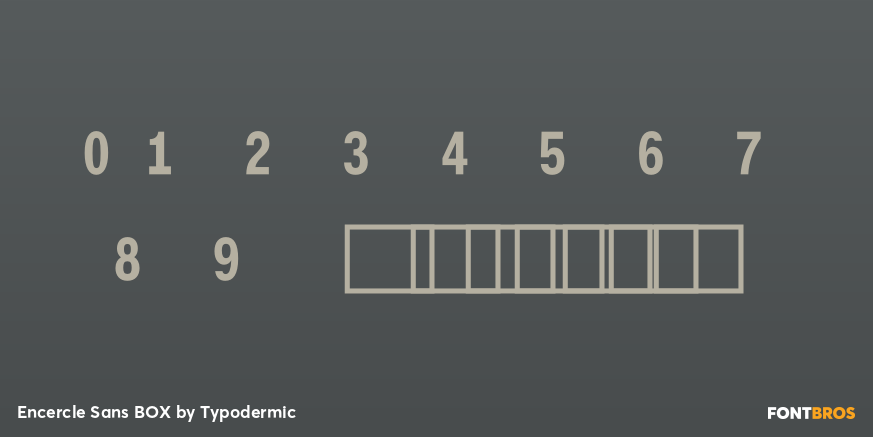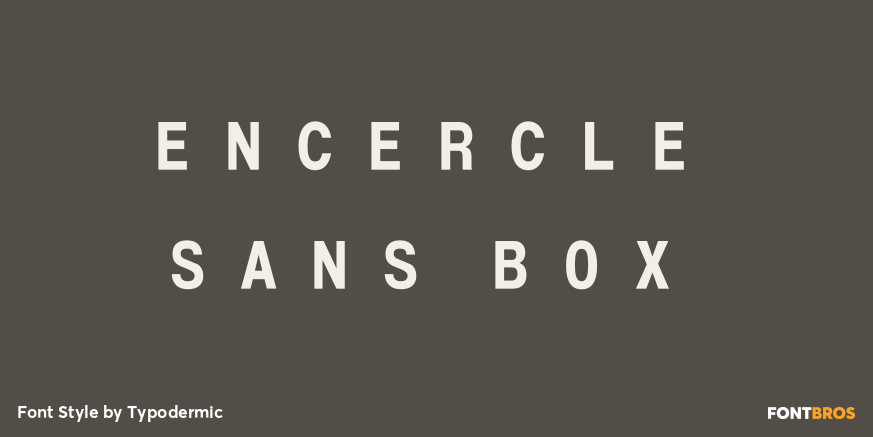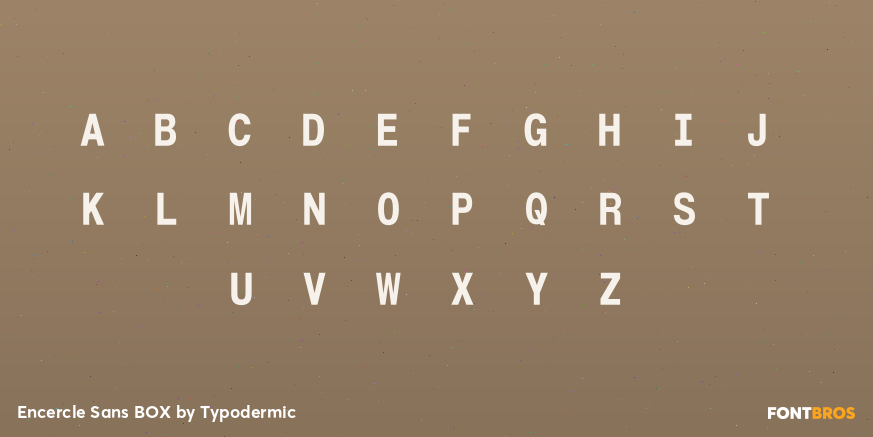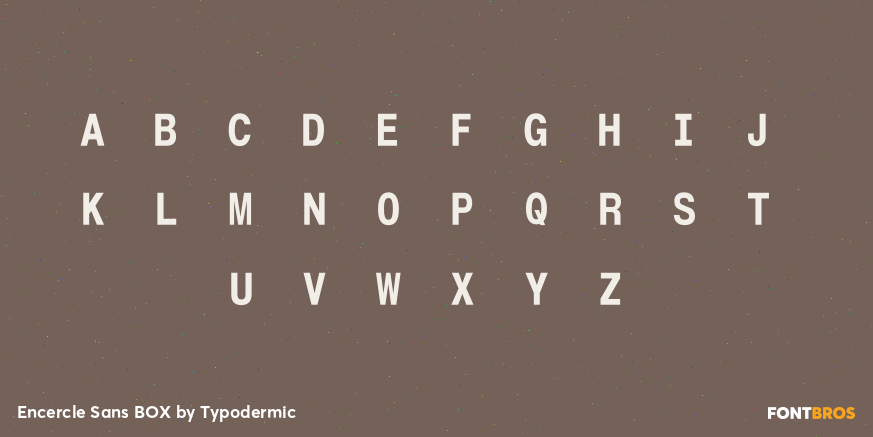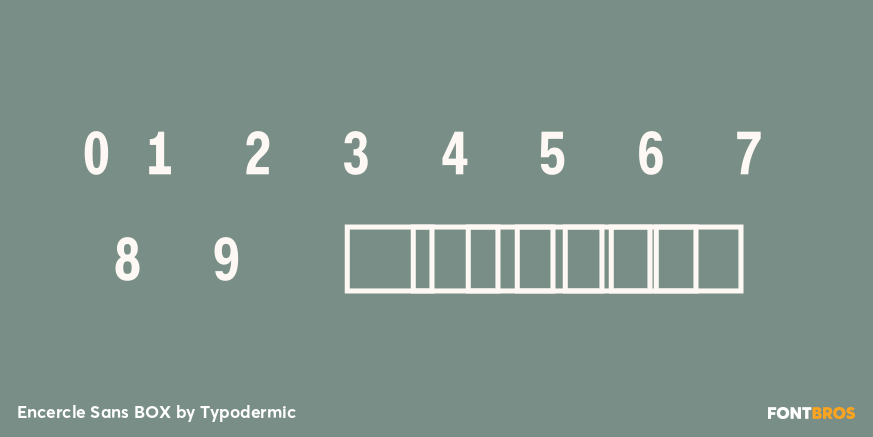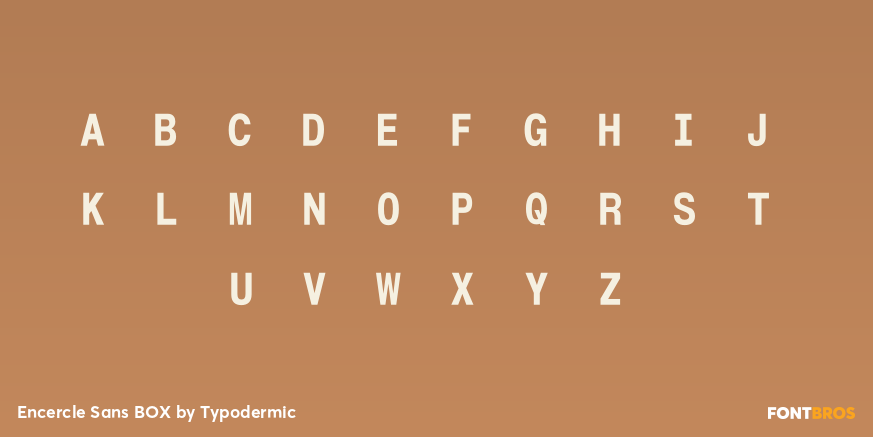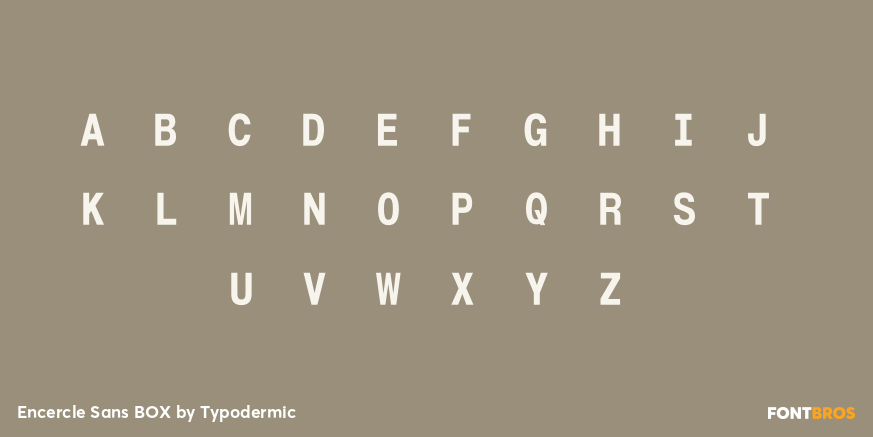
Encercle Sans BOX
Buy NowEncercle Sans BOX wraps labels of up to six characters in a clean rectangular frame that expands with the text, keeping part codes and references centered as they change. BOX Bold is the inverse partner, replacing the outline with a solid box and light lettering. It is a filled marker, not merely a heavier BOX.
Use BOX for part numbers in assembly manuals, exploded-diagram labels, repair instructions, and installation-sheet references where rectangular callouts need to align in tidy rows. It directly serves searches for a boxed-label font, rectangular part-number font, or editable manual-callout typeface.